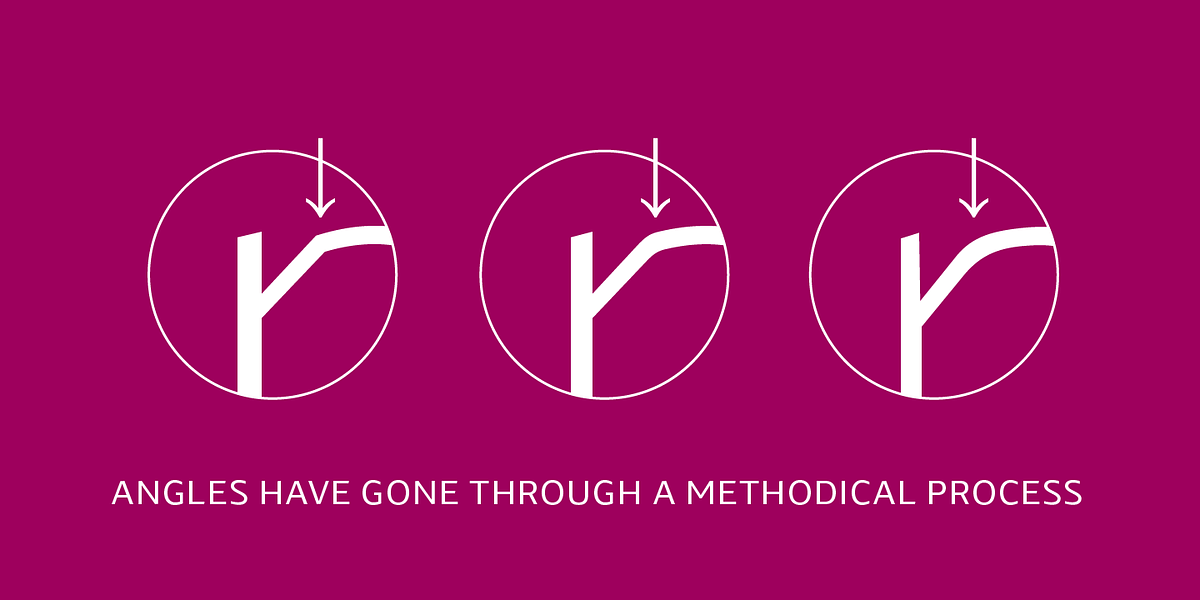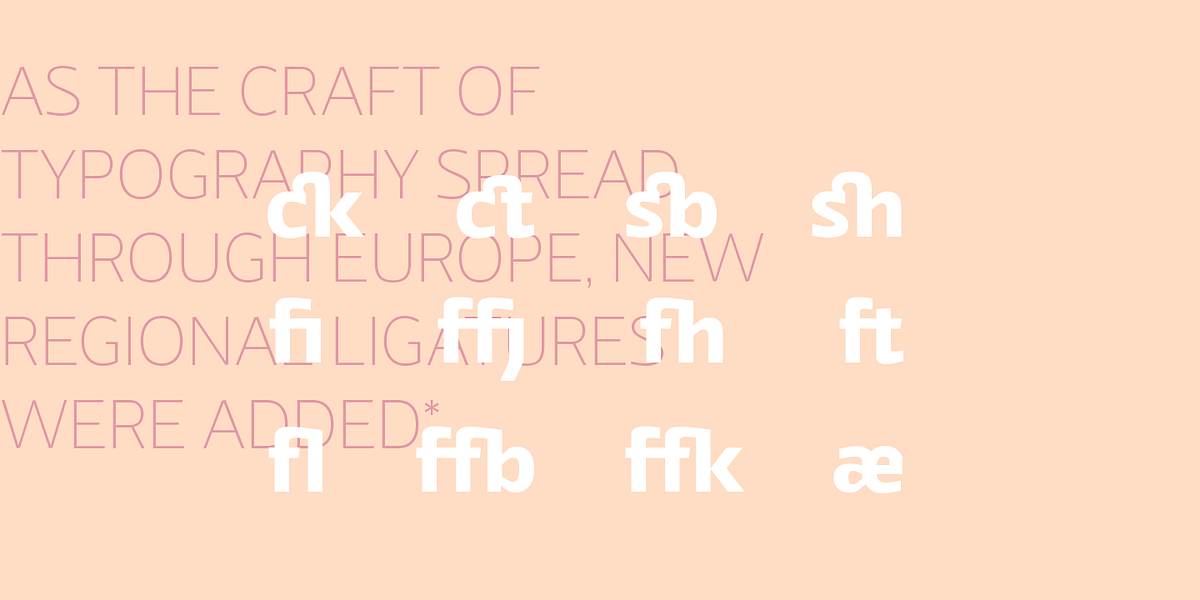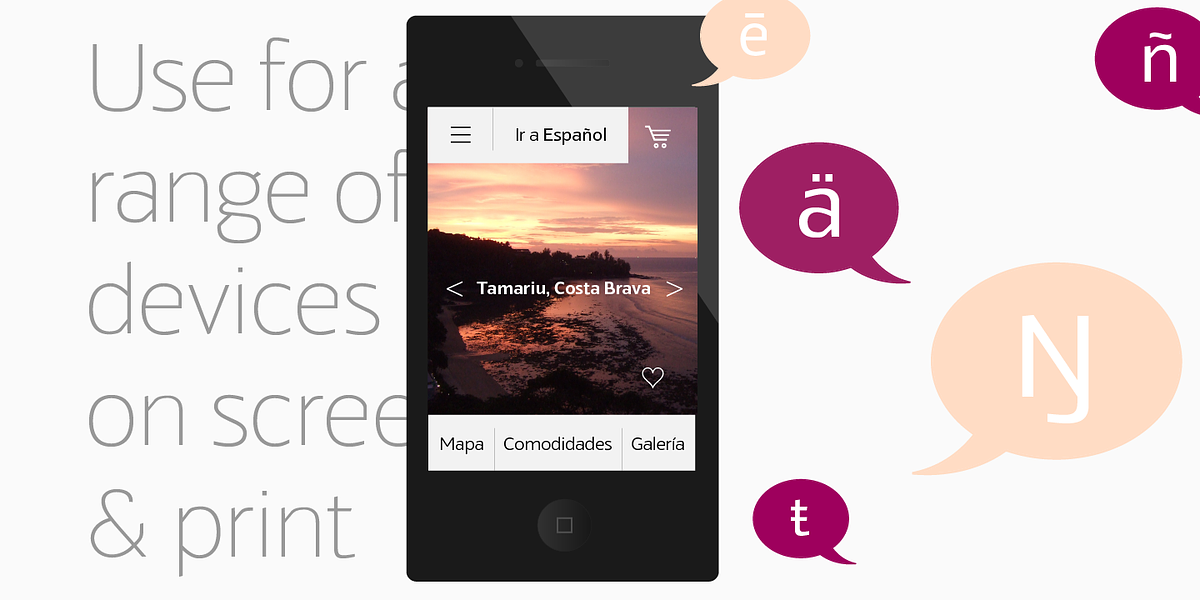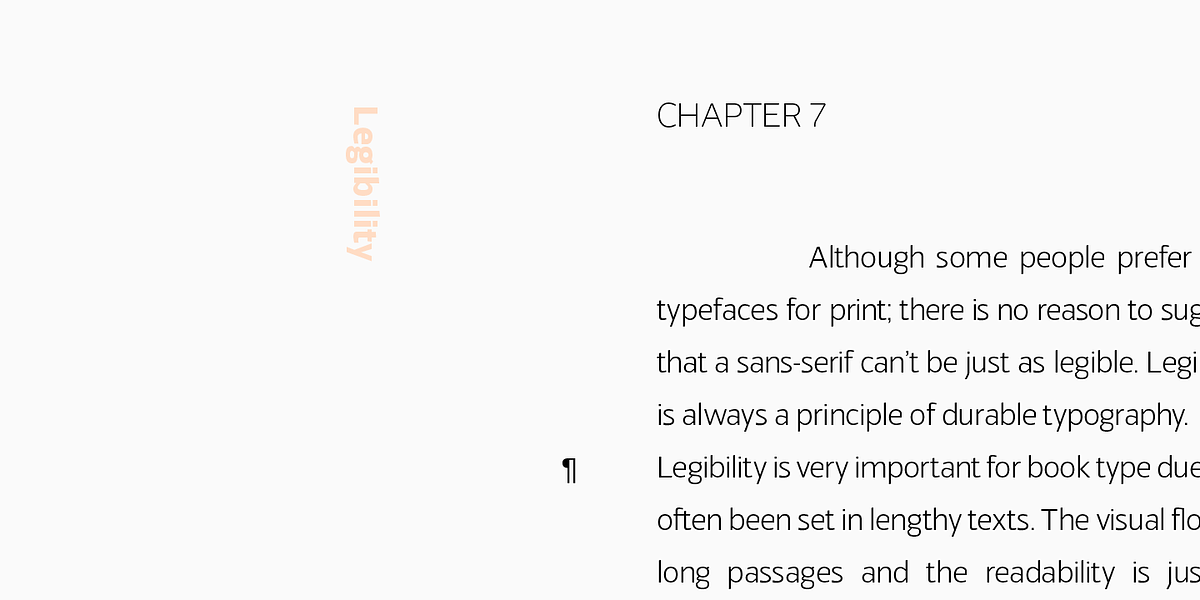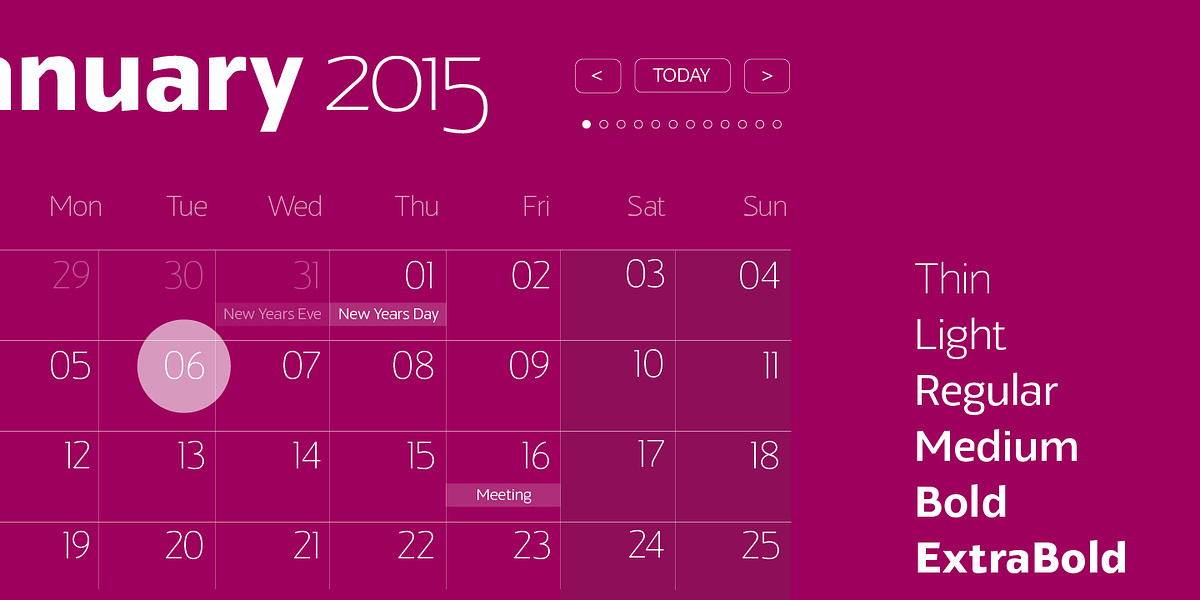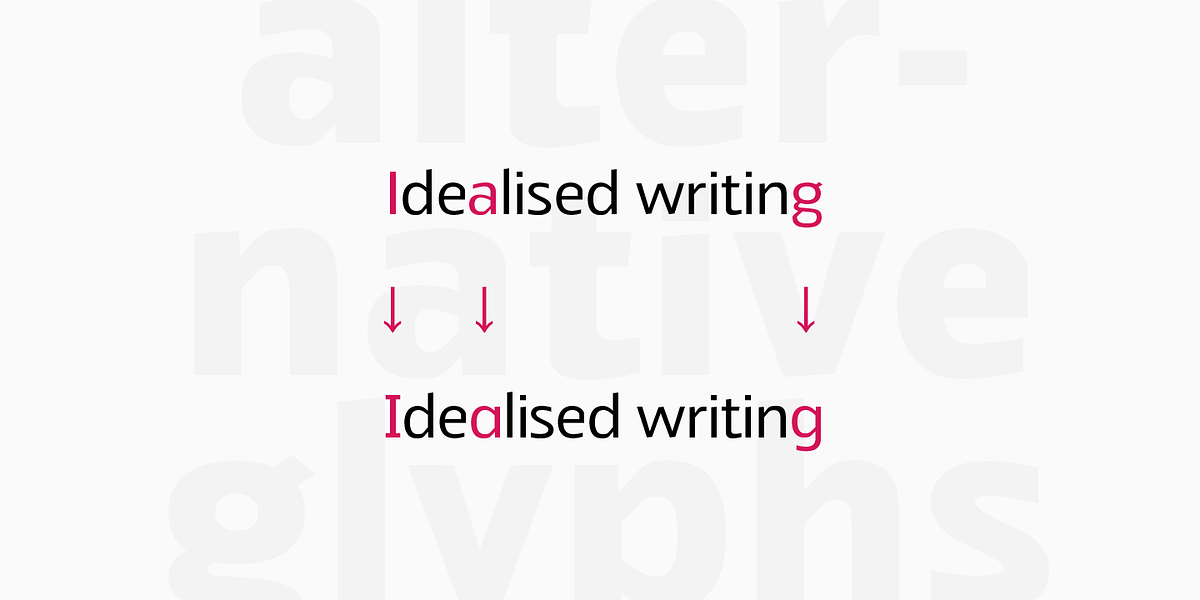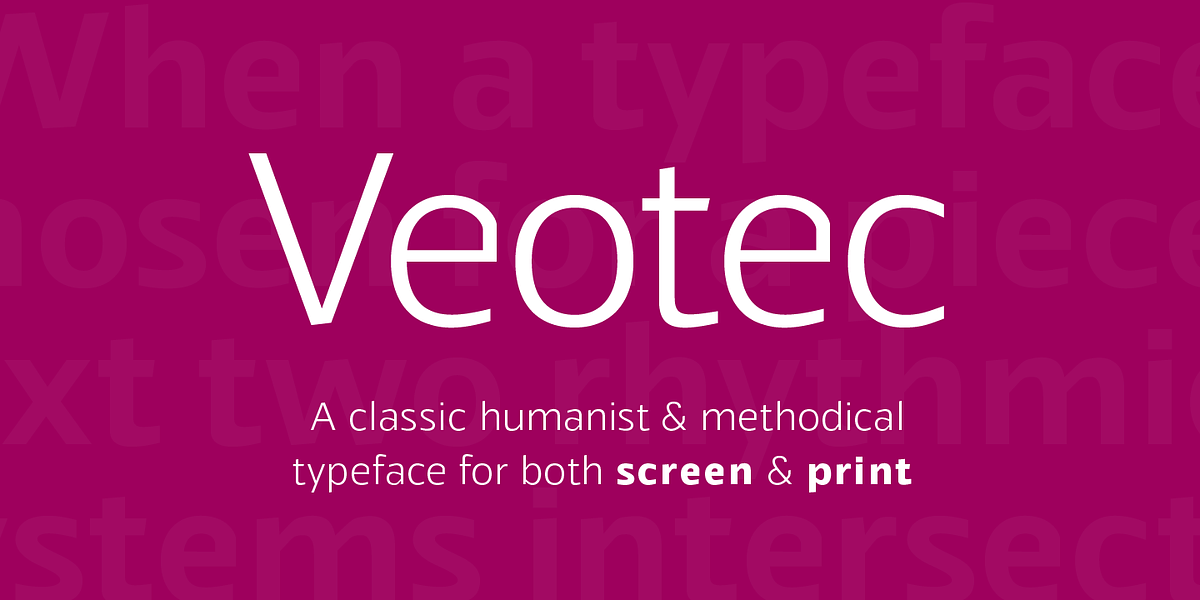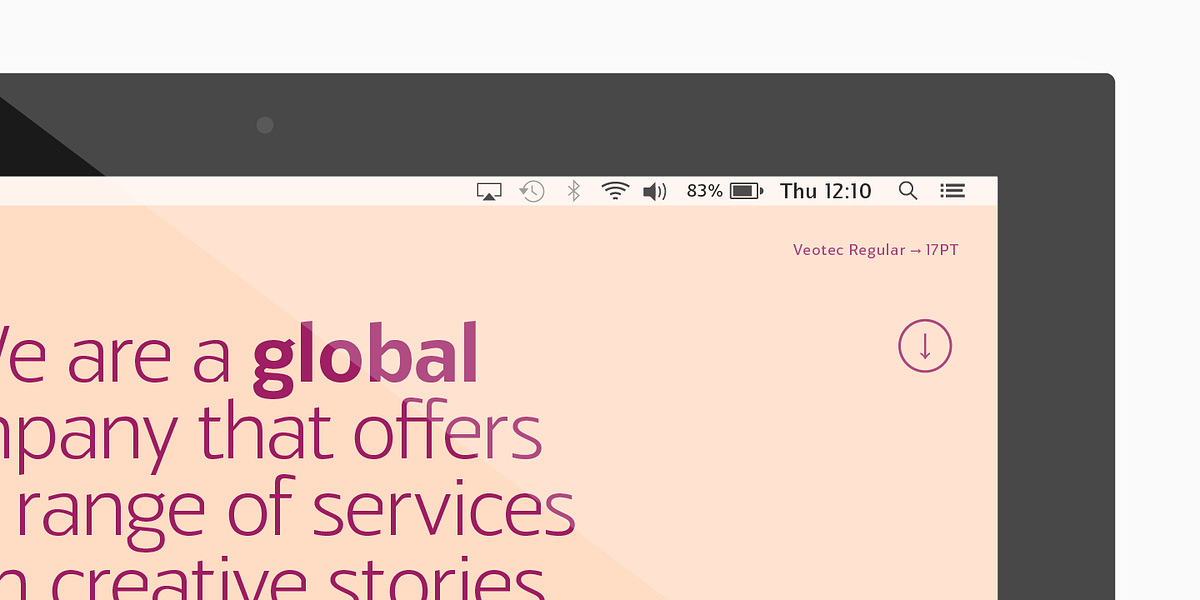
Veotec
Veotec is a humanist sans serif font designed for optimal legibility both on screen and in print. Its sharp angles and precise curves create ample negative space, enhancing readability at smaller sizes. The font also maintains harmony and consistency across its bolder weights without sacrificing legibility. The balance of sharp and round curves gives Veotec a modern and appealing look, especially at larger sizes.